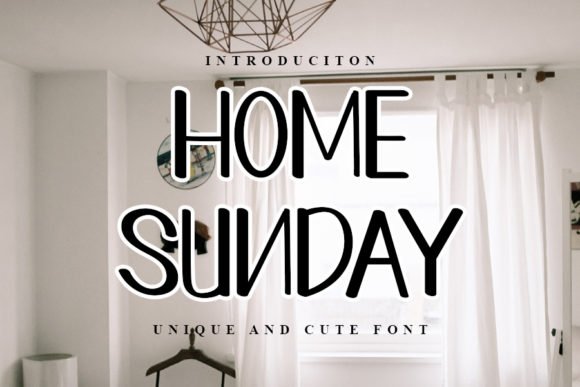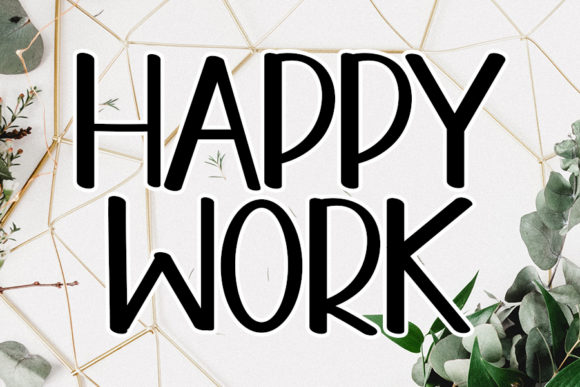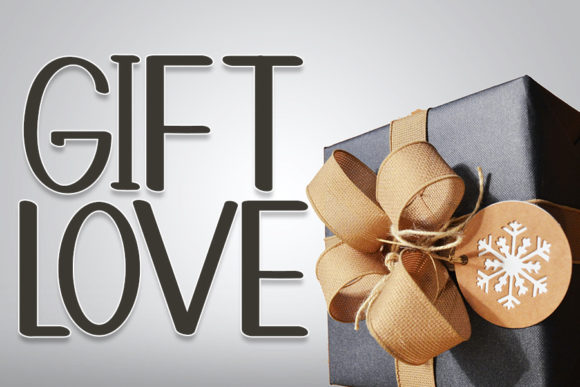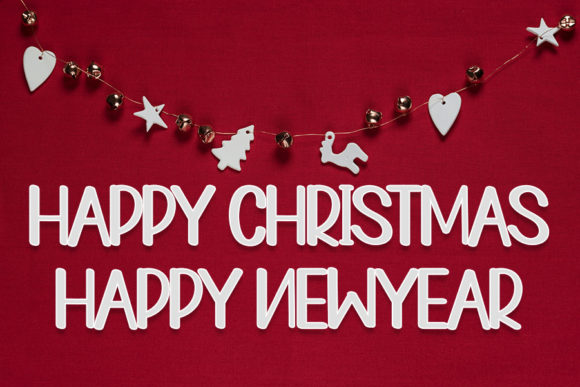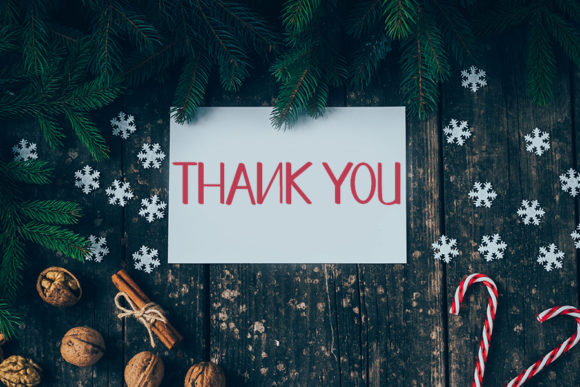
Discover the Perfect Script for Your Creative Vision
Have you ever stared at a blank page, struggling to bring your ideas to life? The blank canvas can be intimidating, but it’s in these moments of creative uncertainty that the right tools can make all the difference. For designers seeking a modern touch, the Home Sunday Font is here to inspire.
This stylish handwritten font boasts straight and narrow lines, making it a unique blend of modernity and elegance. With its sans serif characteristics, the Home Sunday Font’s readability is strong, ensuring that your message shines through. Whether you’re crafting a logo, a poster, or a social media campaign, this versatile font is the perfect addition to your design arsenal.
For designers looking to elevate their work, the Home Sunday Font is a valuable asset that can help take your creative vision to the next level.
Key Features of “Home Sunday Font”
- Unique Characteristics: The font features a distinctive, modern design with a mix of rounded and geometric shapes, giving it a friendly and approachable feel.
- Font Style: The font is available in regular and italic styles, providing flexibility for users who need to create emphasis or differentiate between text types.
- Scalability: The font is designed to be highly scalable, ensuring that it remains clear and legible at various sizes and resolutions.
Home Sunday Font Review
As a designer, I was excited to dive into the Home Sunday Font and see what it had to offer. Here’s my honest review.
- Casual and approachable feel – Home Sunday Font is perfect for creating a welcoming atmosphere in any design.
- High-quality font files – The font files are crisp and clear, making it easy to use in various design applications.
- Good legibility – The font is easy to read, even at smaller sizes.
- Limited character set – The font is missing some special characters, which can be a problem for designers who need to include them in their work.
- No bold or italic weights – This can limit the font’s versatility and make it harder to use in certain situations.
While Home Sunday Font has some great qualities, its limitations hold it back from being a truly top-notch font. It’s still a great option for casual designs, but designers who need more advanced features may want to look elsewhere.
The Home Sunday Font is ideal for:
- Celebrating special occasions, such as weddings or anniversaries
- Creating invitations, greeting cards, or gift tags
- Designing marketing materials, such as brochures or flyers
Tips for Getting the Most Out of Home Sunday Font
To get the most out of Home Sunday Font, experiment with different font sizes, colors, and combinations with other design elements. Consider pairing the font with a matching font for a cohesive look, and use the font in a variety of contexts to add visual interest.
Alternatives to Home Sunday Font for Designers
Lato is a clean and modern sans-serif font that is highly legible. It is perfect for use in digital products, magazines, and other materials where a clear and concise font is required. Compared to Home Sunday Font, Lato has a more minimalist approach and is easier to read in smaller font sizes.
Montserrat is a geometric sans-serif font that is highly versatile and suitable for a wide range of applications. It is ideal for use in urban and modern contexts, such as city guides, fashion magazines, and corporate materials. Montserrat has a more industrial feel compared to Home Sunday Font, which is more rustic and vintage.